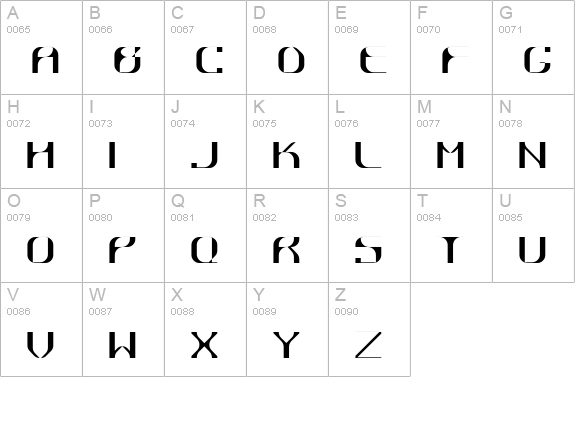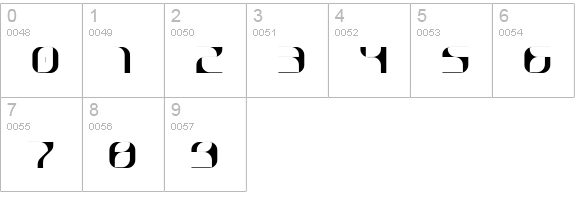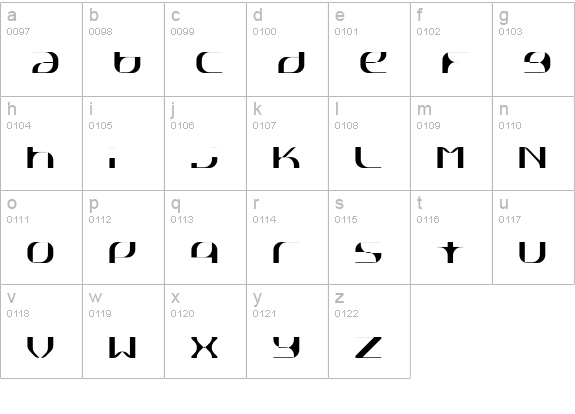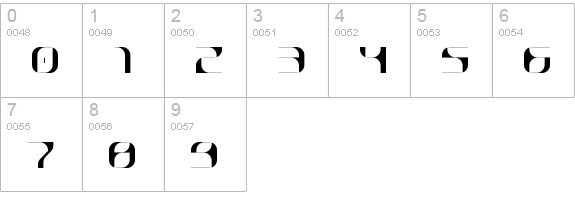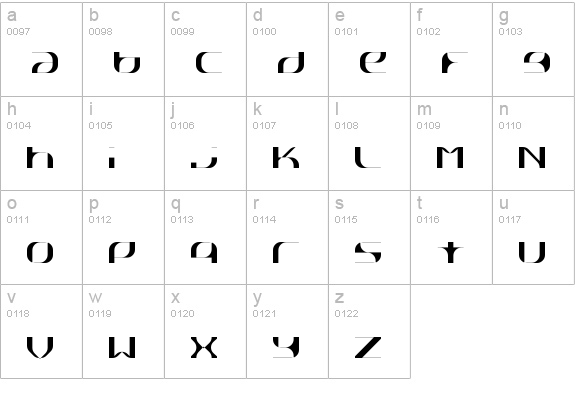
RÃ¥ttpick Font Details
Introducing Råttpick, a captivating and versatile font that is sure to make a lasting impression. With its unique and eye-catching design, Råttpick sets itself apart from the crowd, adding a touch of modern elegance to any project. This stunning font features bold, clean lines that exude confidence and sophistication. Its sleek and contemporary appearance makes it perfect for a wide range of applications, including logos, branding, headlines, posters, and more. Whether you're designing for a corporate client or creating a personal project, Råttpick is the perfect choice to elevate your work to the next level. One of the most remarkable features of Råttpick is that it is absolutely free. Yes, you read that right! This extraordinary font is freely available to download at FontsMarket.com, allowing you to enhance your designs without breaking the bank. You no longer have to compromise on quality or settle for generic fonts when Råttpick is just a click away. The versatility of Råttpick extends beyond its captivating design and affordability. With a wide range of characters and glyphs, this font offers endless possibilities for customization. Whether you want to emphasize a particular word or add a unique touch to your typography, Råttpick provides the flexibility you need to bring your vision to life. Crafted with meticulous attention to detail, Råttpick ensures legibility and readability in any size or format. Its clean and well-defined letterforms guarantee that your message will be delivered with clarity and impact, making it an ideal choice for both print and digital projects. So why wait? Embark on a typographic journey that combines elegance, versatility, and affordability with Råttpick. Download this exceptional font for free at FontsMarket.com and unlock a world of endless design possibilities. Elevate your projects, captivate your audience, and make a statement with Råttpick, the font that truly stands out from the rest.